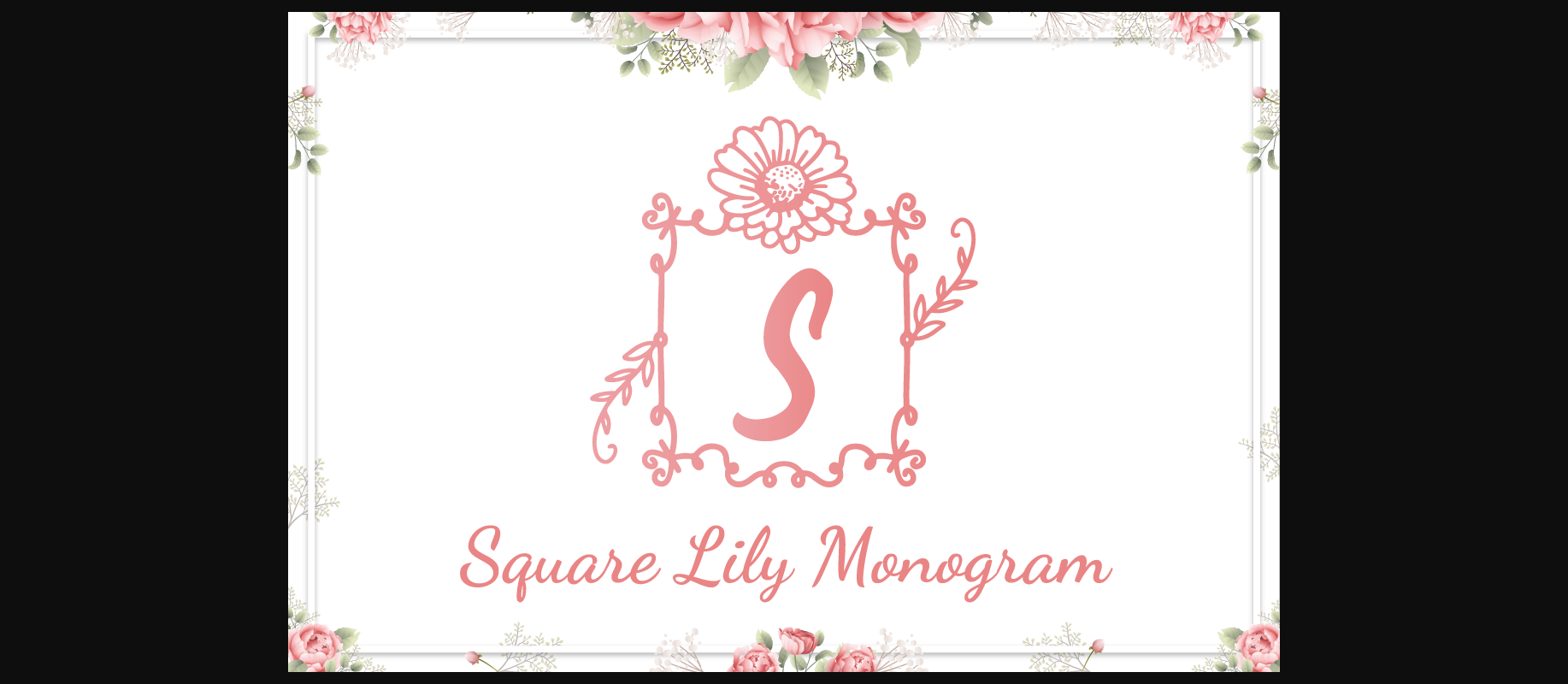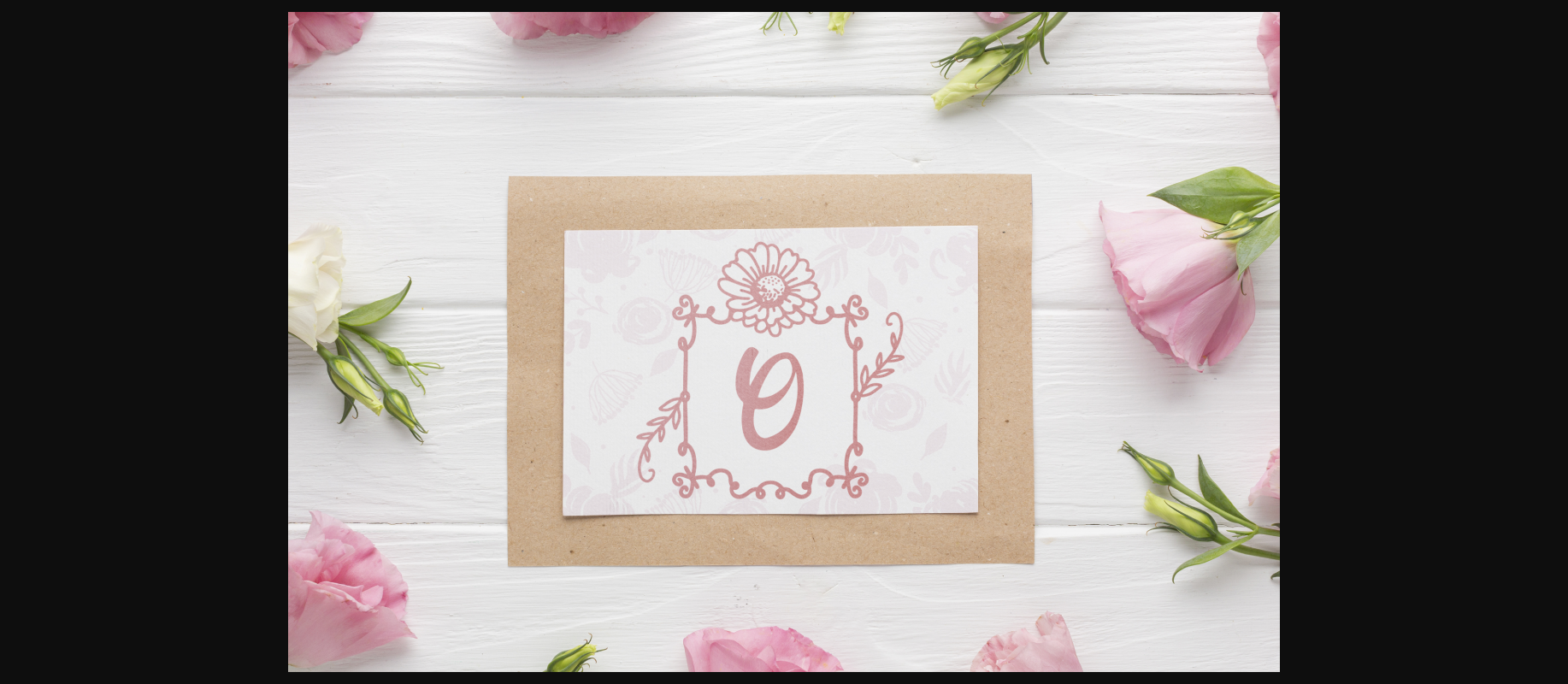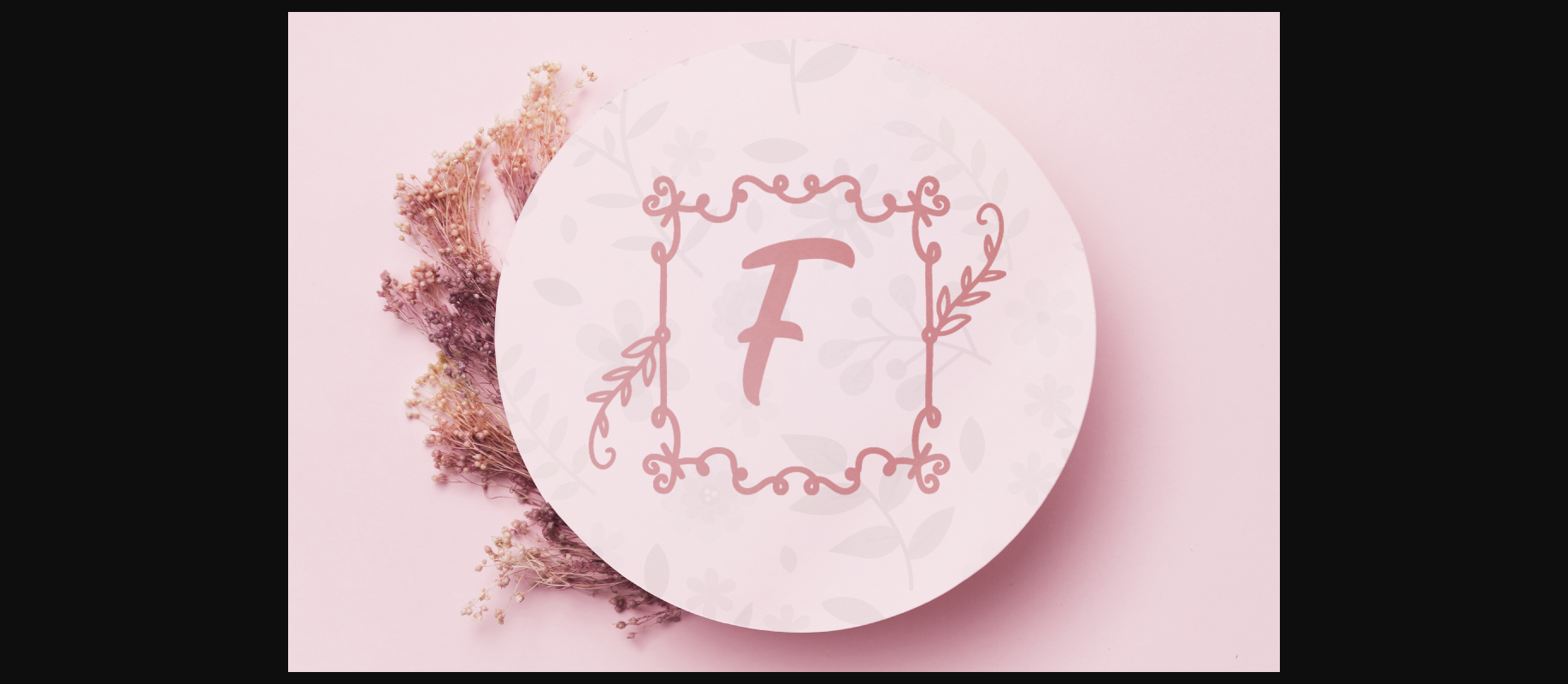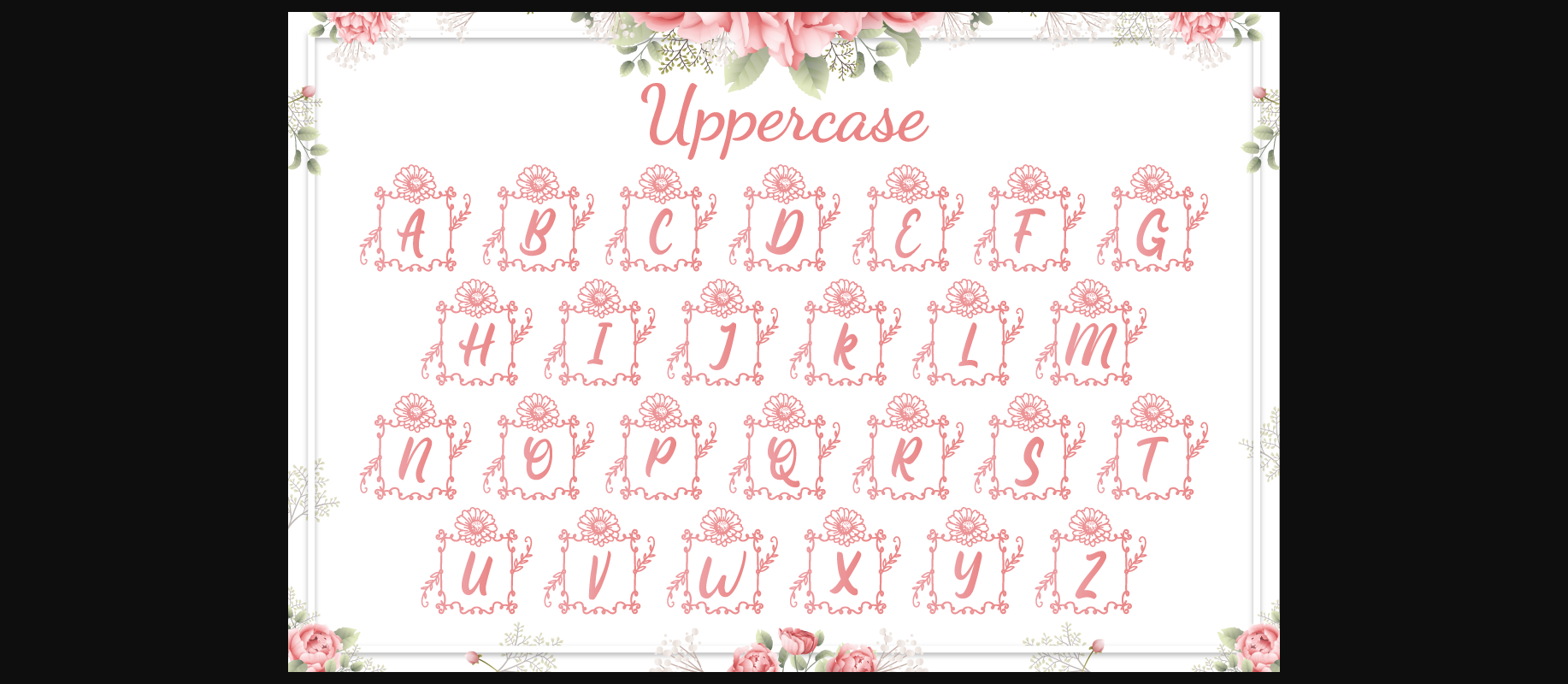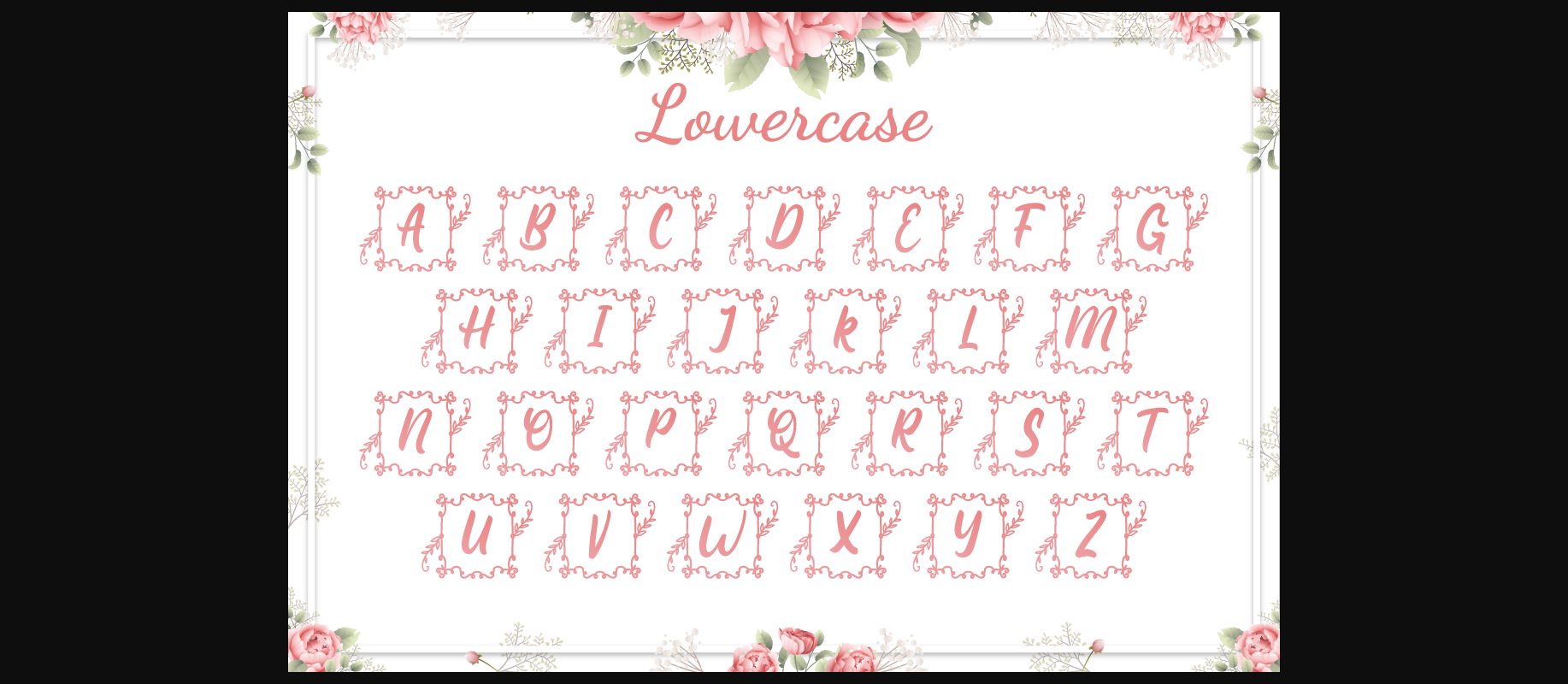
Square Lily Monogram Font
About Square Lily Monogram Font
Square Lily Monogram is flowery decorative font. Fall in love with its incredibly versatile style and use it to create gorgeous wedding invitations, beautiful stationary art, eye-catching social media posts, and much more!